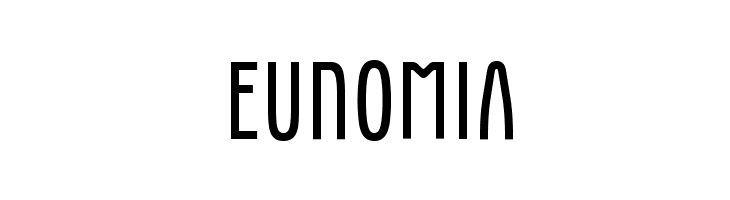
A modern, geometric font with sleek lines and rounded edges.
A modern, geometric font with elongated, angular characters and a futuristic style.
A modern, geometric font with a bold and slightly condensed style.